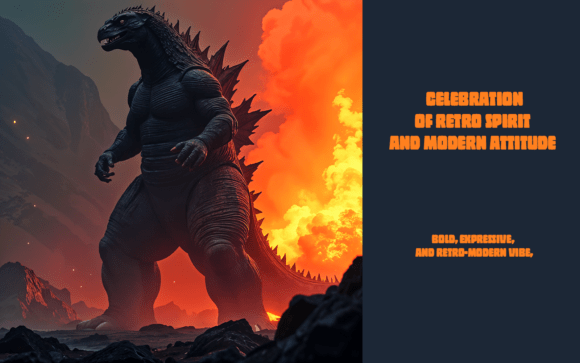
Unleash Your Creativity with Boldorama Font
You know that moment when you’re brainstorming ideas for a new project and suddenly, the perfect font pops into your head? It’s like a spark of inspiration, and you know you’ve found the perfect match. For designers, finding that perfect font can make all the difference between a good project and a great one.
That’s where Boldorama Font comes in – a striking typeface that’s perfect for display headlines, album covers, branding, and cultural events. With its dramatic curves, solid shapes, and bold personality, Boldorama Font adds instant energy and style to any creative project. Whether you’re a seasoned designer or just starting out, this font is a valuable addition to your toolkit – it’s guaranteed to make your message loud, proud, and unforgettable.
Boldorama Font Key Features
- Font Family: Boldorama Font is a sans-serif font family designed for readability and versatility. It is available in several weights, from Light to Bold.
- Unique Characteristics: Boldorama Font features a distinctive rounded edge design, giving it a friendly and approachable feel. The font also includes a wide range of ligatures and alternates to enhance readability and aesthetic appeal.
Boldorama Font Review
Overall, I’m quite impressed with the Boldorama Font. It has a unique, eye-catching style that’s perfect for making a statement. ✨ The font’s bold lines and geometric shapes give it a futuristic feel, making it ideal for futuristic or sci-fi themed designs. ✨ The font is also highly customizable, allowing users to adjust the weight, size, and spacing to suit their needs. ✨
- Unique and eye-catching design
- Futuristic feel makes it perfect for sci-fi or tech-related designs
However, there are a few limitations to consider. ⚠️ The font may be too bold for some designs, overpowering other elements on the page. ⚠️ Additionally, the font’s geometric shape may not be suitable for all types of content, such as body text. ⚠️
- May be too bold for some designs
- Not suitable for all types of content, such as body text
Overall, I think the Boldorama Font is a great addition to any designer’s toolkit. With its unique design and high customizability, it’s perfect for making a statement in futuristic or sci-fi themed designs. However, it’s worth considering the limitations and using it judiciously in your designs.
Getting the Most Out of Boldorama
To get the most out of the Boldorama font, use it sparingly to add emphasis and create visual interest. Experiment with different font sizes and styles to achieve the desired look.